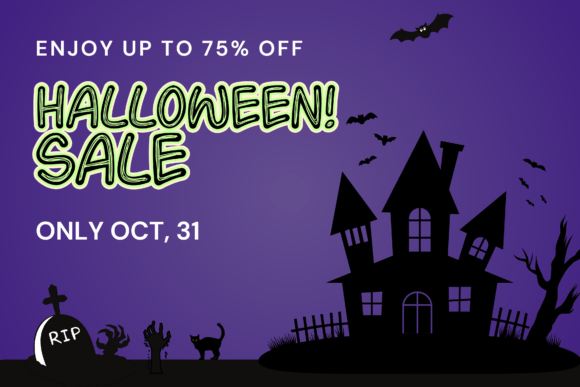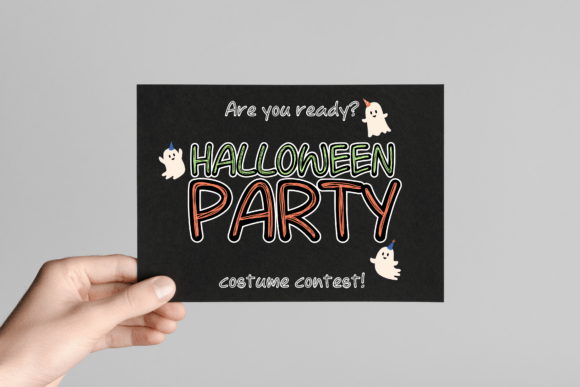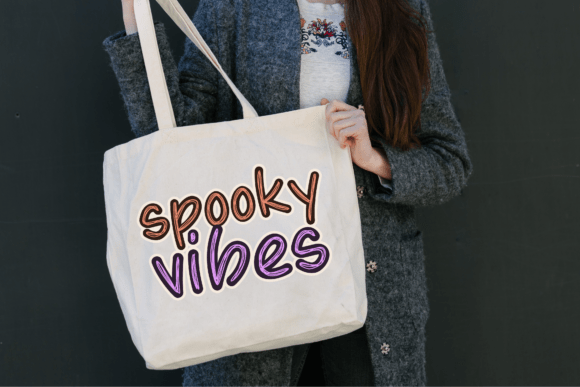
Introduction to Scratchy Shadows Font
Have you ever found yourself rummaging through your old sketchbooks, searching for that perfect, quirky doodle to add a touch of personality to your design project? For many creatives, this is a familiar moment of inspiration – and it’s exactly what the Scratchy Shadows Font is designed to evoke. With its playful, textured handwritten style and subtle scratchy lines, this font is the perfect design resource for adding a handmade charm to your creative projects.
Whether you’re working on a Halloween-themed craft, designing party invitations, or creating stickers with a spooky twist, the Scratchy Shadows Font is an excellent choice. Its high-quality design and transparent background make it easy to use in a variety of creative contexts, from digital designs to print materials. And the best part? You can download it for free, making it an invaluable resource for designers looking to add a unique touch to their work.
Key Features of Scratchy Shadows Font
- Unique, high-quality design with a distressed texture, ideal for creative projects and designs that require a vintage or retro feel.
Honest Review: Scratchy Shadows Font
I recently came across the Scratchy Shadows Font, and I must say, it’s a great addition to my design resources. The font is free to download, which is a big plus for designers on a budget. Upon closer inspection, I was impressed by its high quality and the attention to detail that’s gone into its creation.
The font’s unique, hand-drawn style makes it perfect for creative projects that require a bit of texture and character. I particularly love the transparent background option, which gives me the flexibility to customize the font to fit my design needs.
- The font may not be suitable for projects that require a clean, minimalist look
- Some users may find the font’s unique style a bit too quirky or distracting
Overall, I’m really impressed with the Scratchy Shadows Font. It’s a great addition to my design arsenal, and I’m excited to see how it can enhance my creative projects. If you’re looking for a unique, high-quality font for your next design project, I’d definitely recommend checking it out.